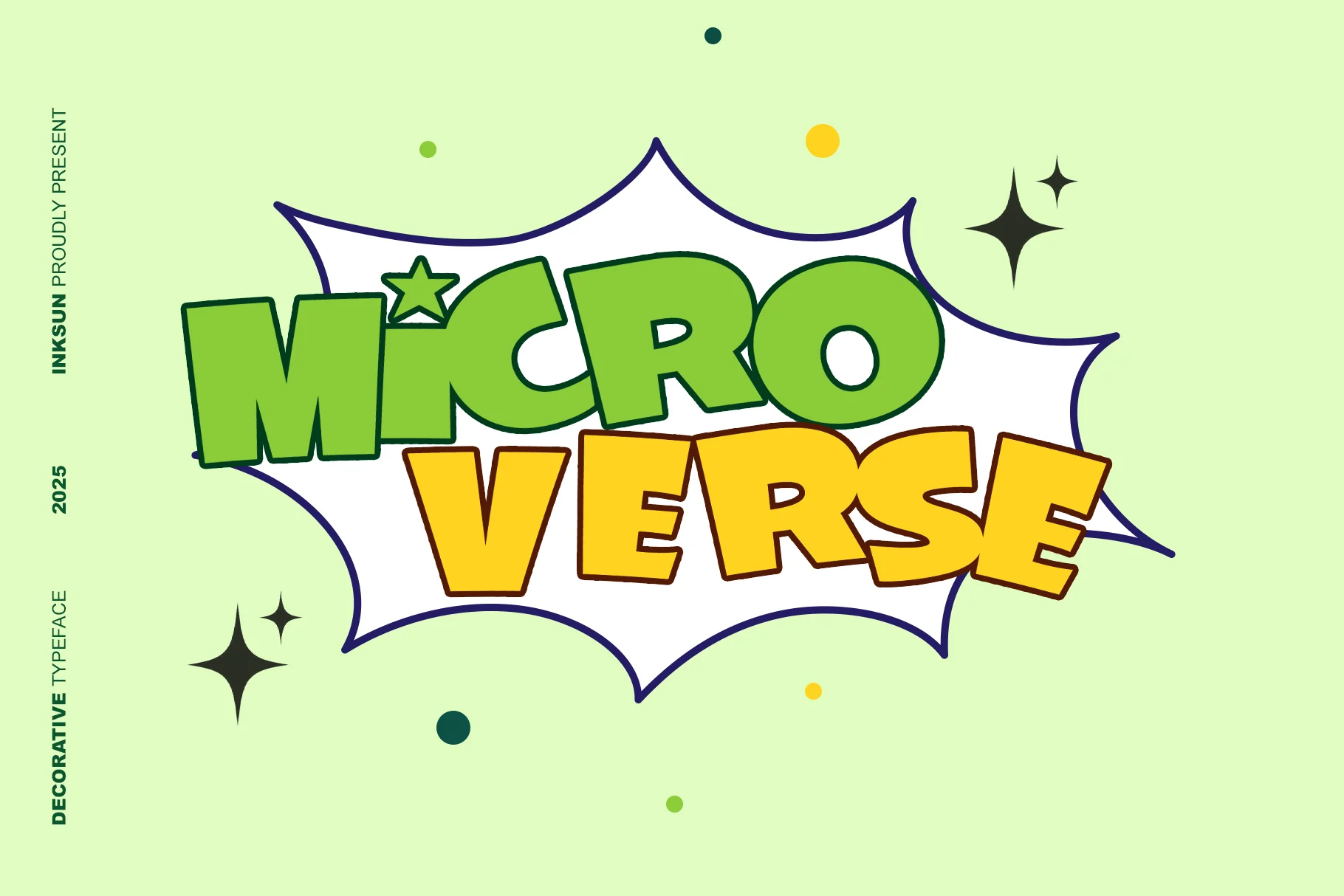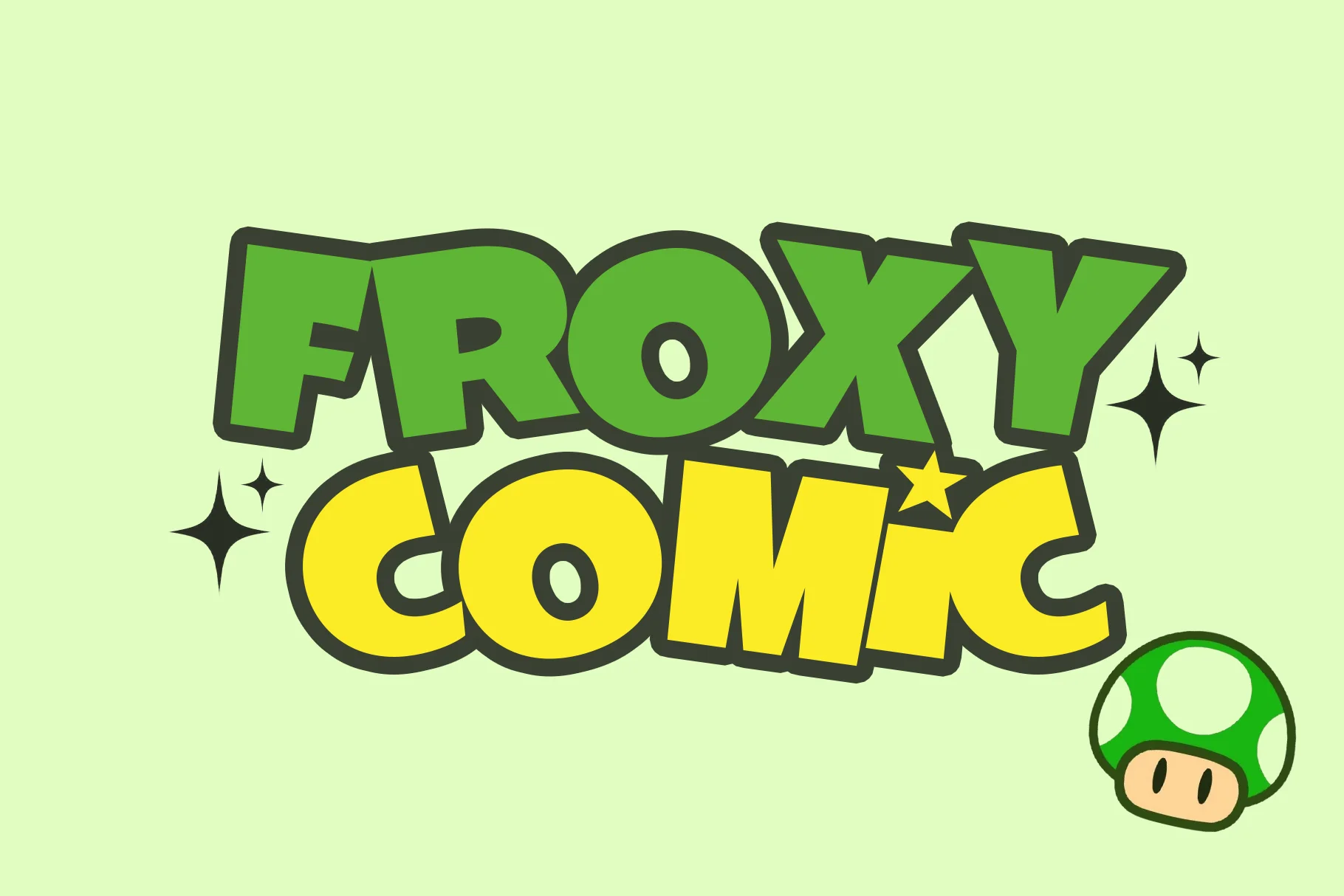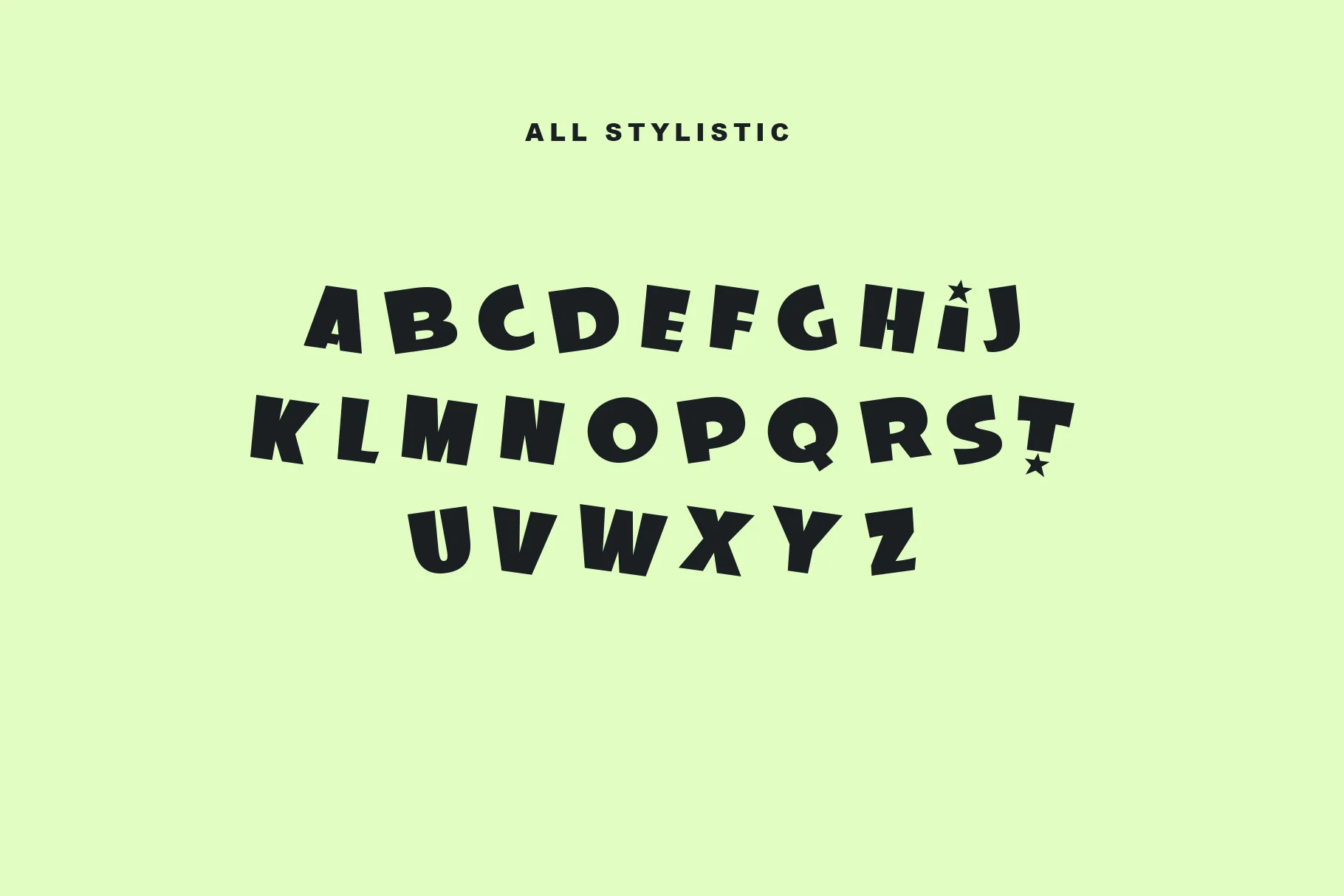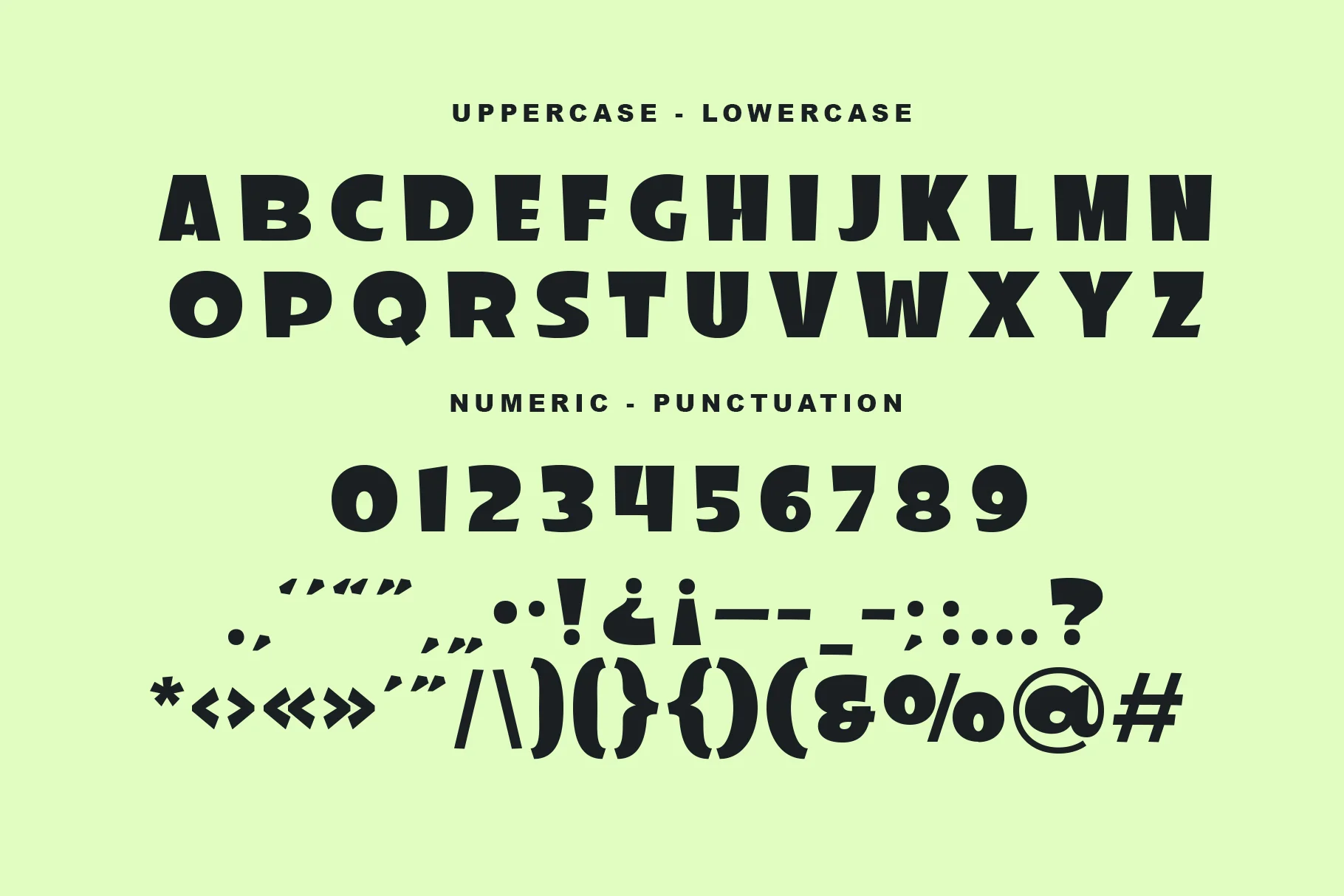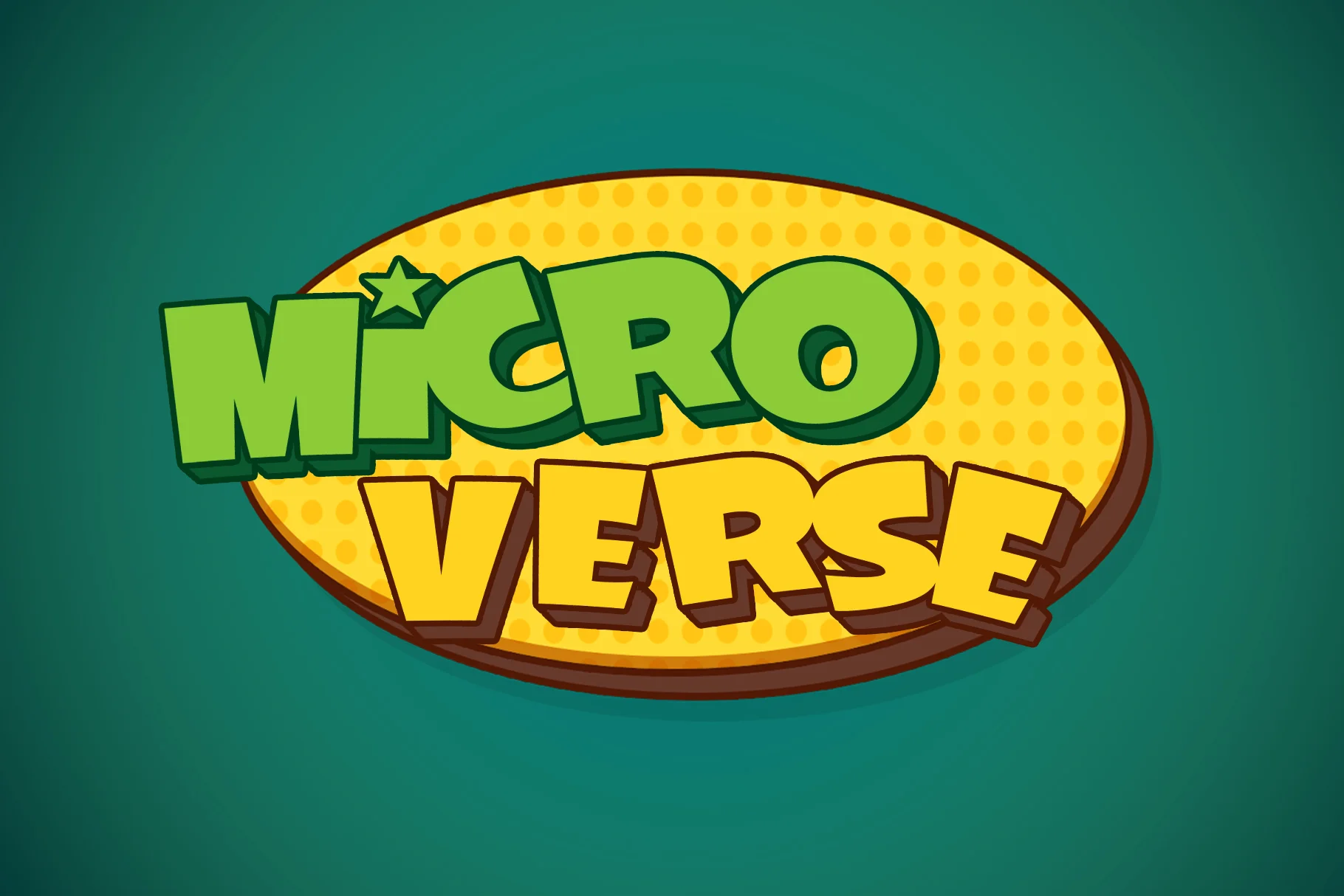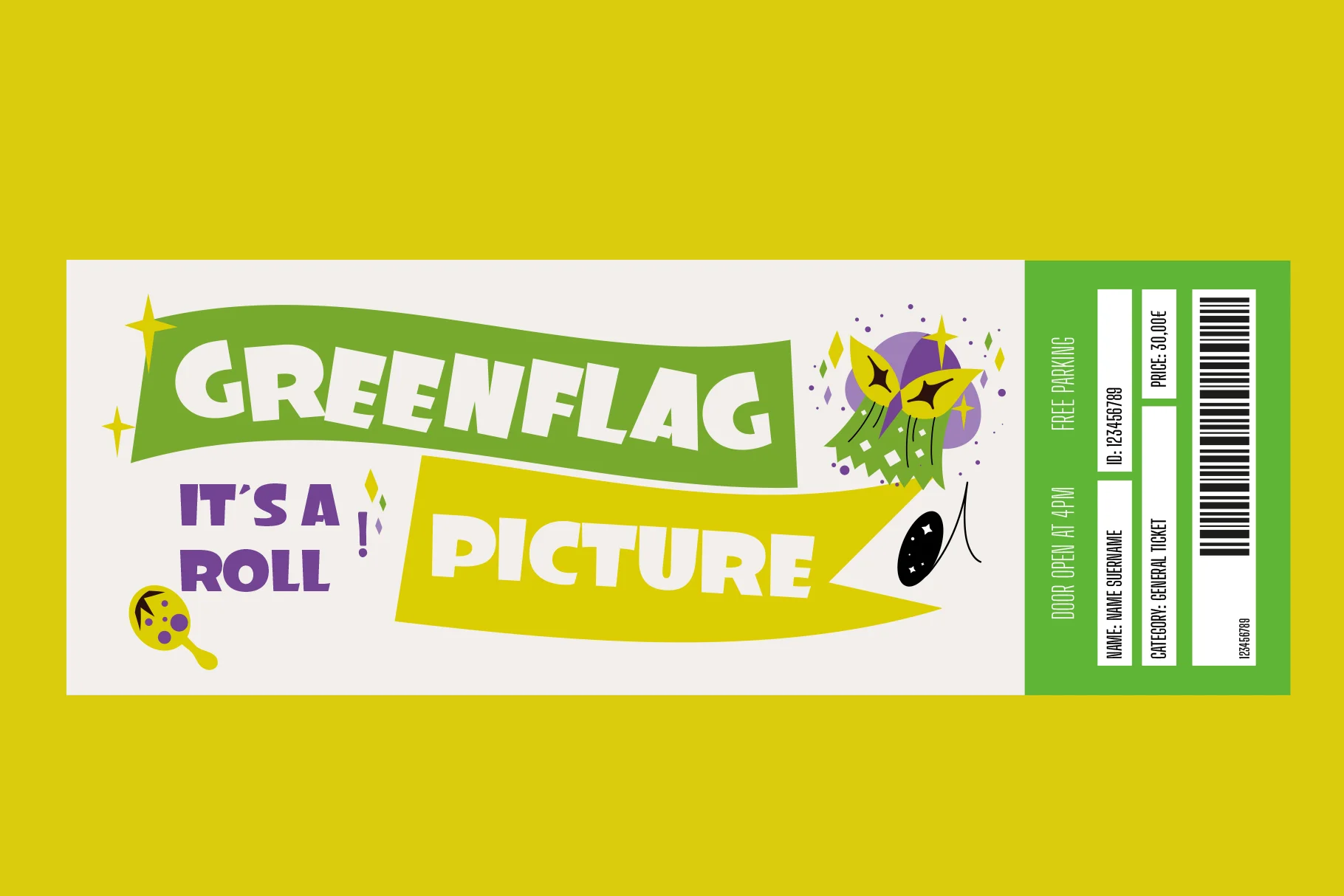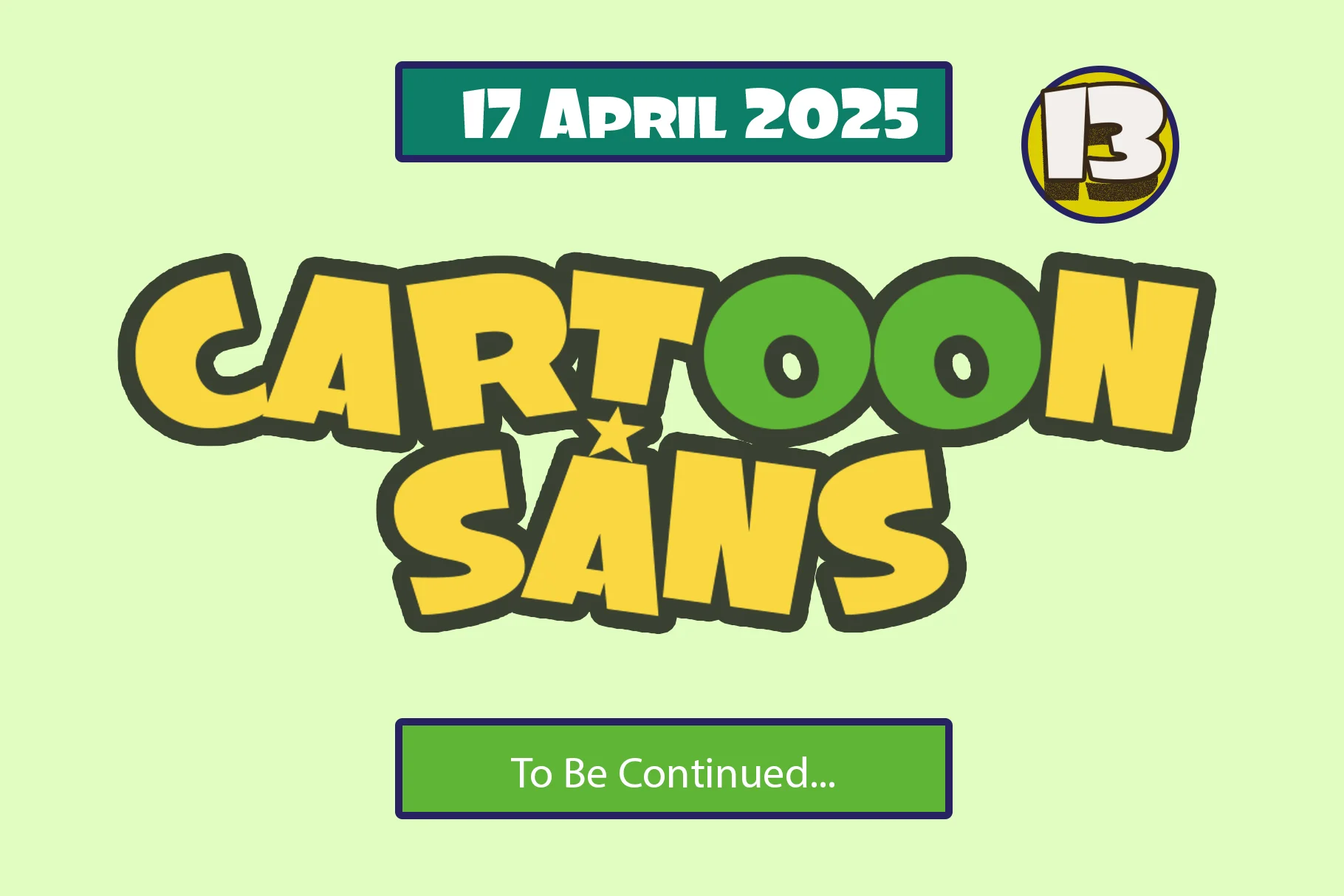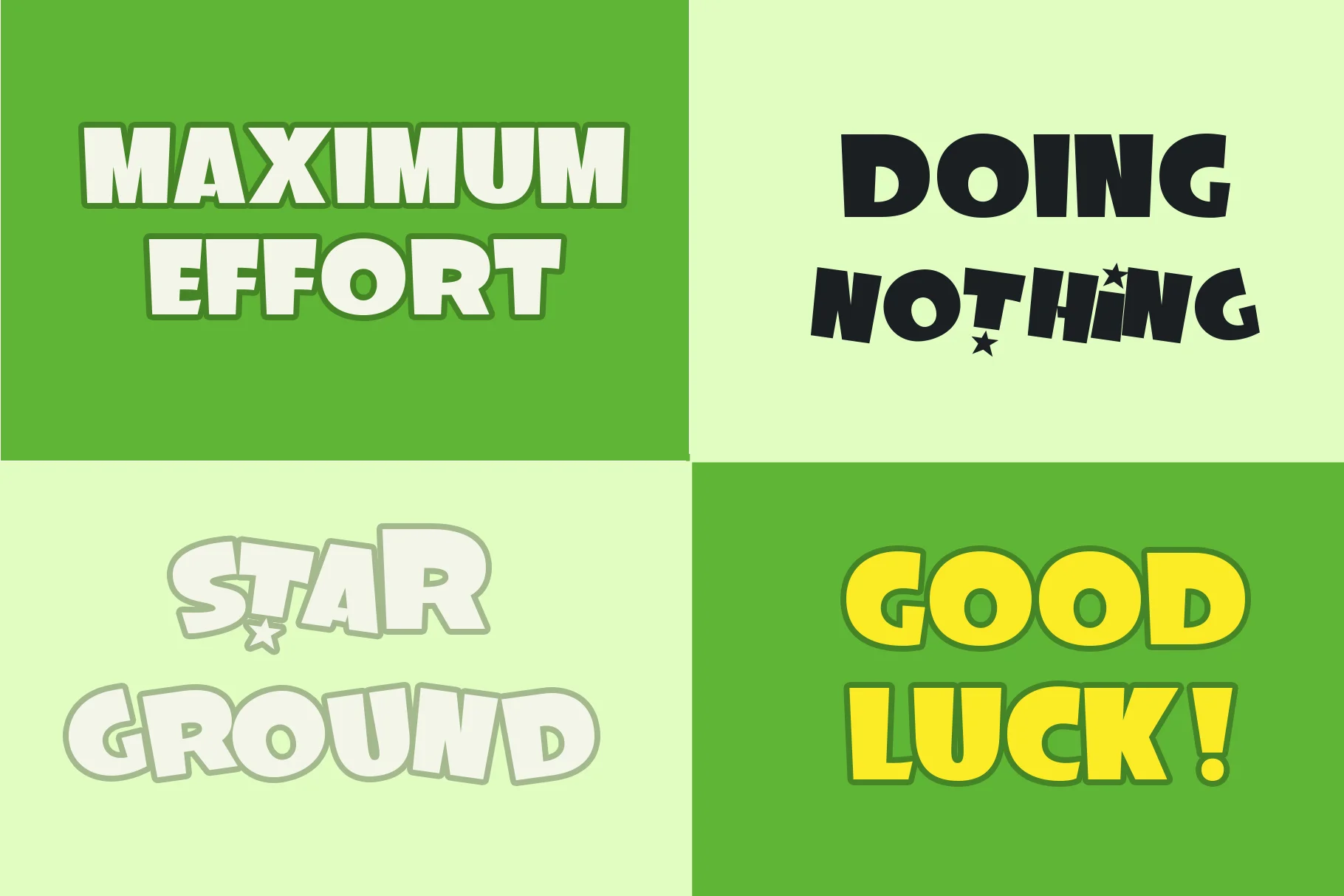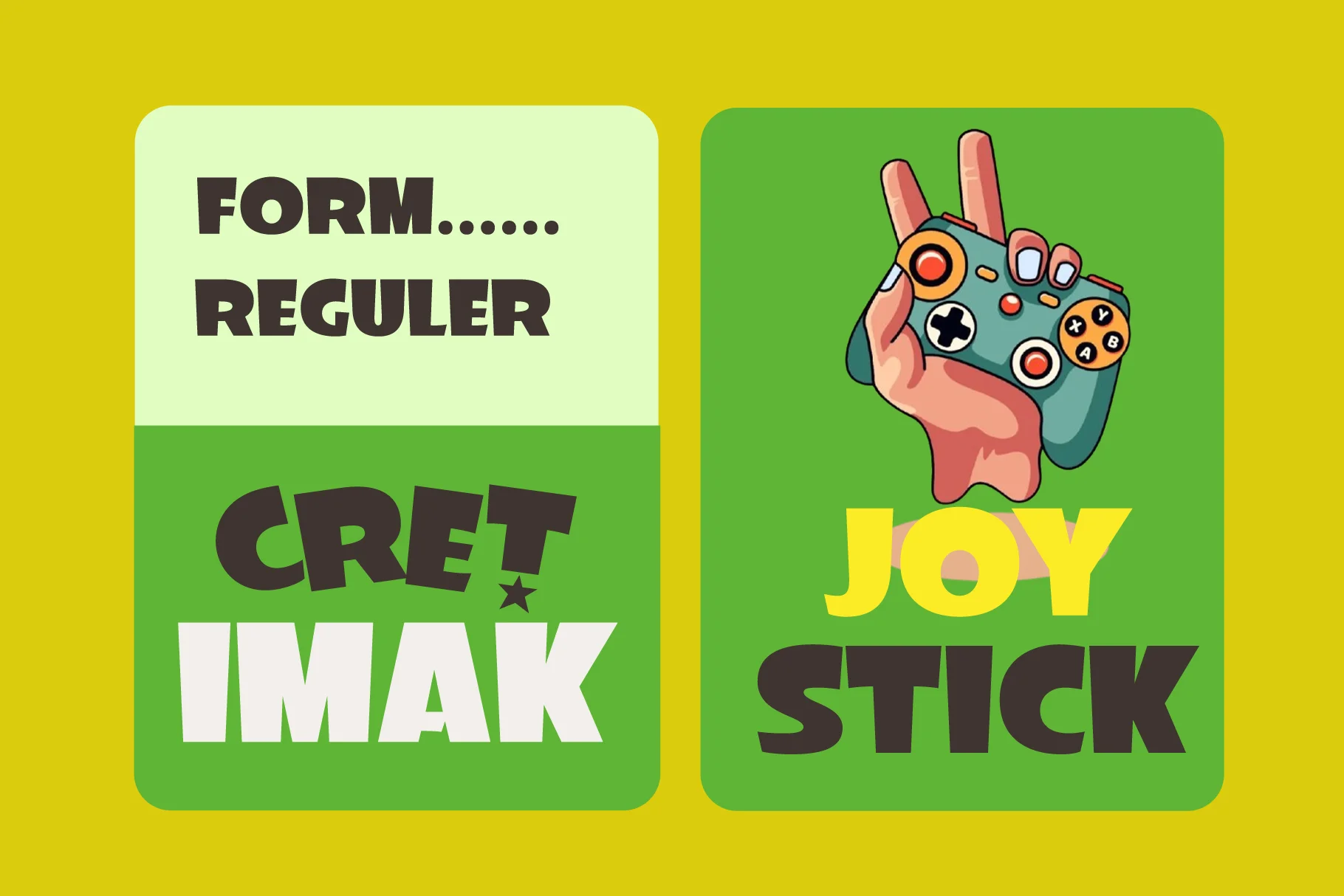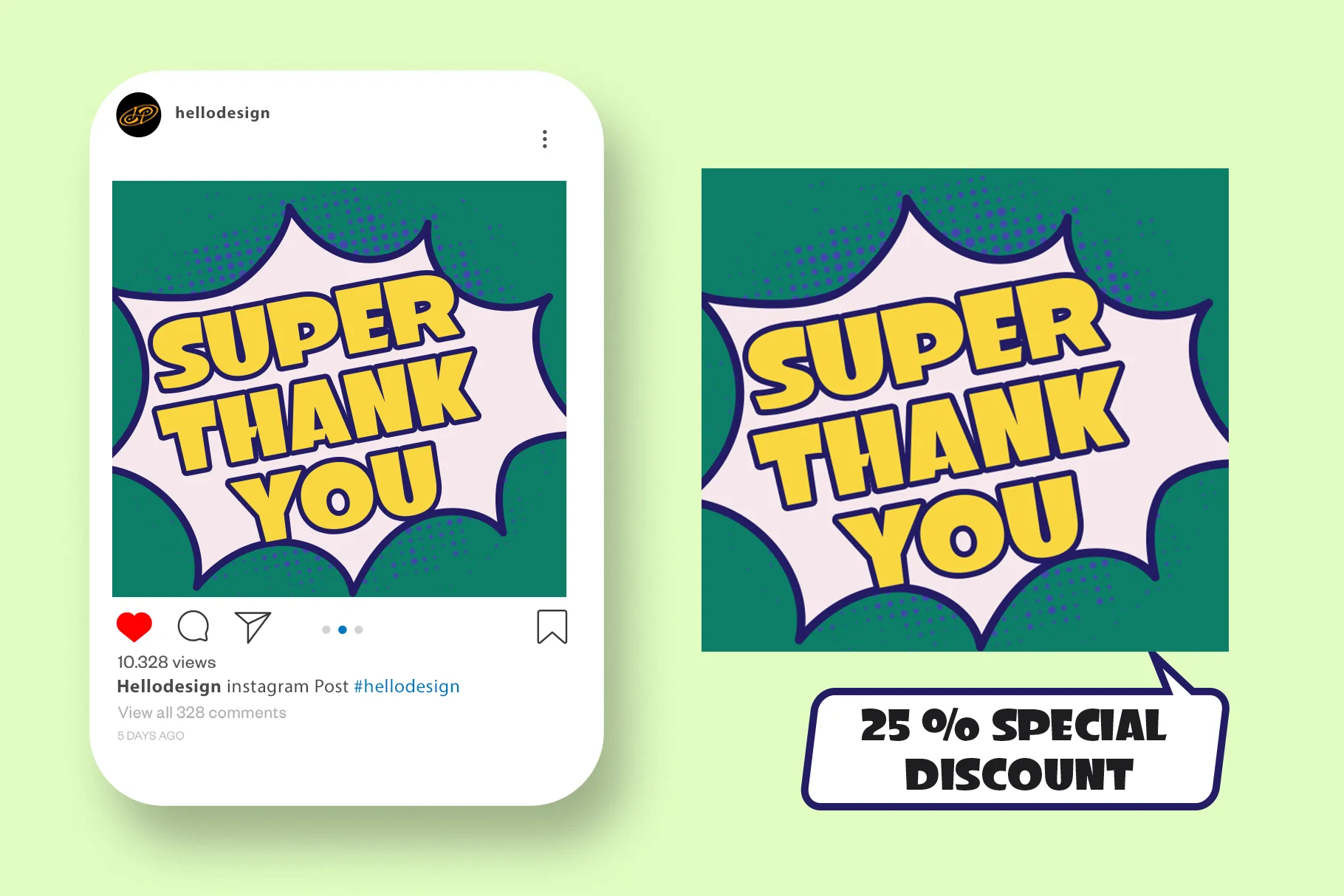
Micro Verse
**Micro Verse** will perfect for many project: book, magazines, logo, branding, photography, quotes, blog header, poster, advertisements, etc.
**Feature**
* Uppercase
* Lowercase
* Numeral
* Functional
* Multilingual
* Stylistic